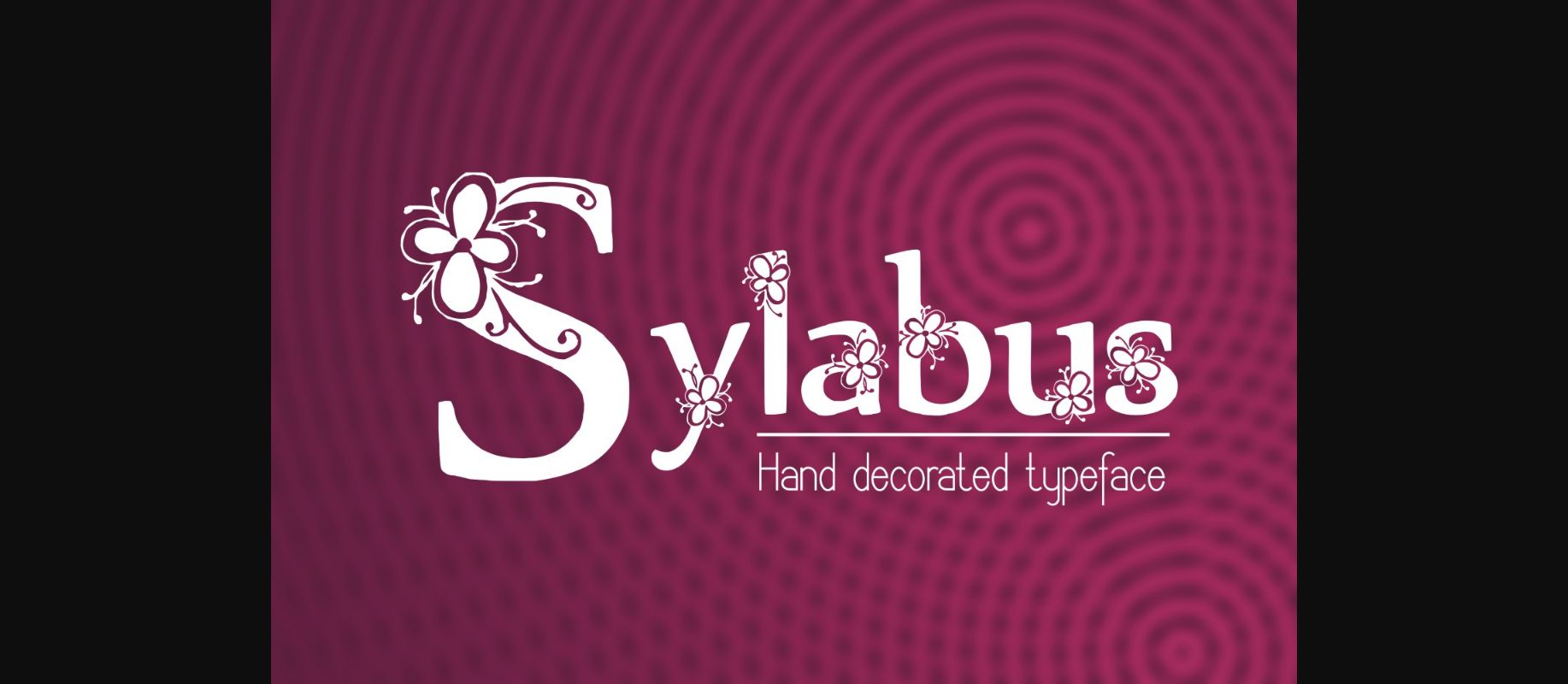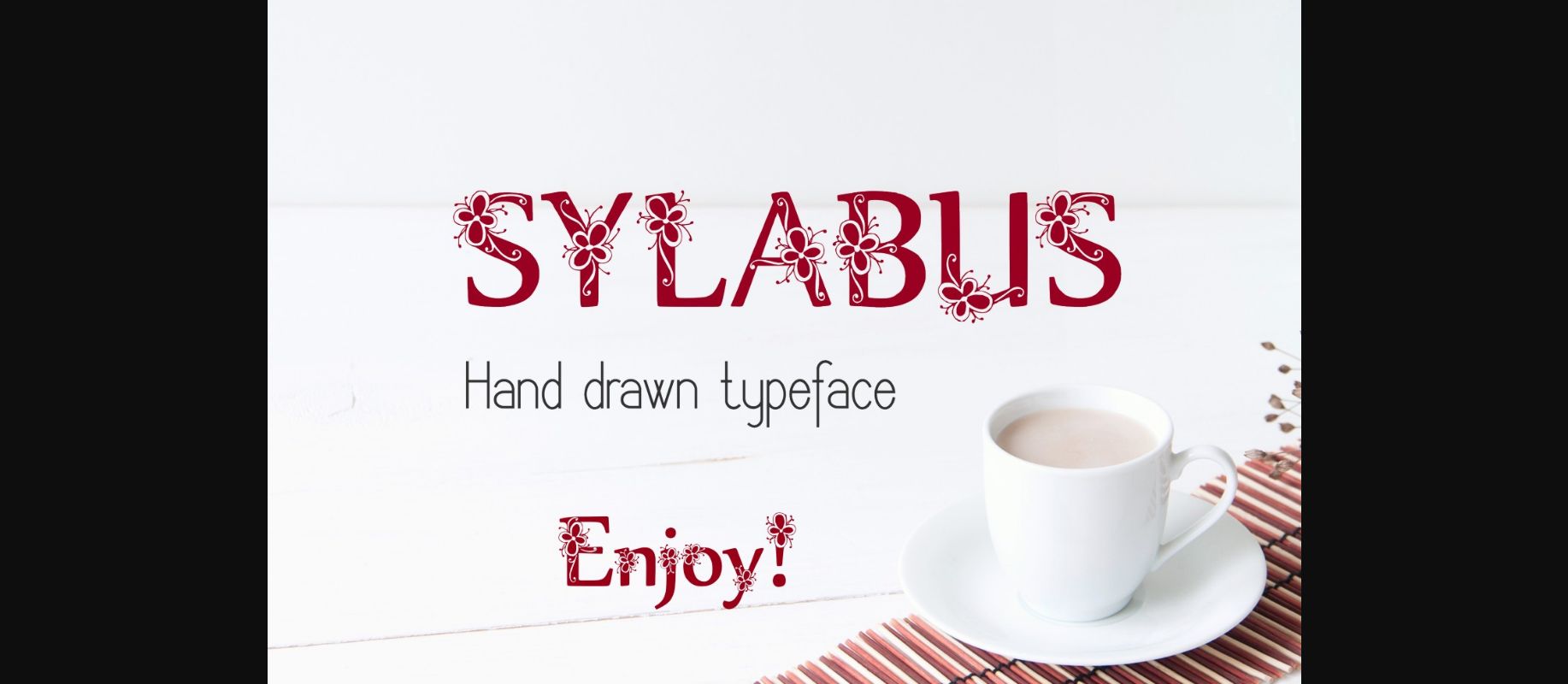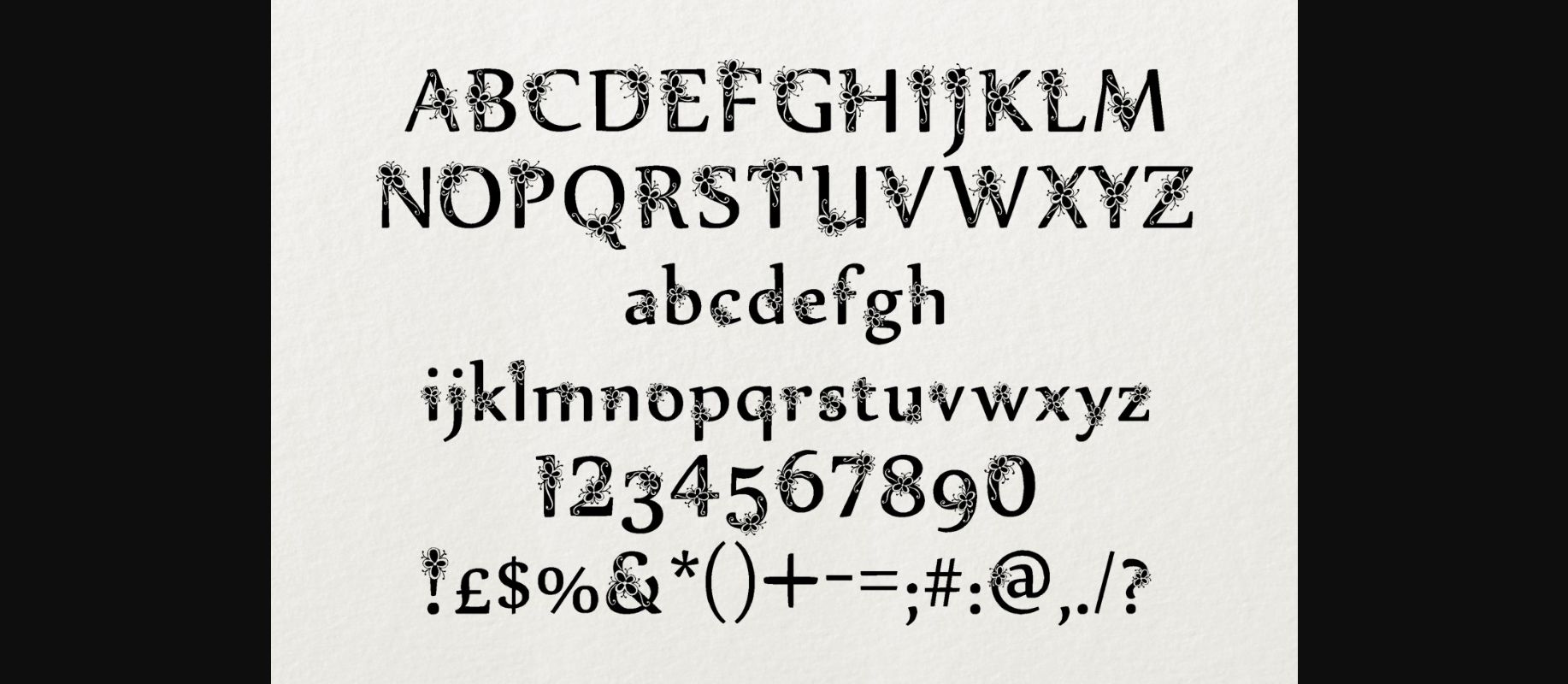
Sylabus Font
About Sylabus Font
Sylabus is perfect for product packaging, branding projects, wedding stationery and homeware designs – or simply as a text overlay to any background image.